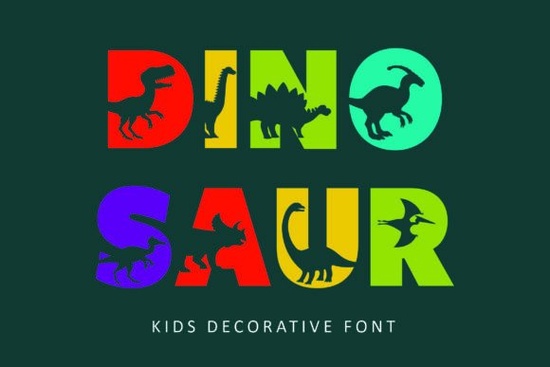
When it comes to creating engaging and fun designs for children, the Dinosaur Font is a fantastic choice. This playful typeface features adorable dinosaur silhouettes cleverly cut out from each capital letter, making it a hit for any project aimed at kids.
Why Choose Dinosaur Font for Your Creative Projects?
The Dinosaur Font is not just another decorative font; it's a creative tool that brings a unique and vibrant touch to your designs. Whether you're working on educational materials, nursery decor, or birthday invitations, this font adds a playful and engaging element that kids will love. The clear, bold, block style of the font ensures readability, while the decorative glyphs spark imagination and creativity.
Perfect for Educational Materials
One of the standout uses for the Dinosaur Font is in educational materials. Imagine creating worksheets, flashcards, or even a small book where each page features a different dinosaur. The font's playful design can make learning more enjoyable and memorable for young children. For example, you could use it to label different dinosaurs in an illustrated guide, making it both educational and visually appealing.
Ideal for Nursery Decor and Birthday Invitations
The Dinosaur Font is also perfect for nursery decor and birthday invitations. You can create custom wall art, name signs, or even a personalized banner for a dinosaur-themed birthday party. The font's vibrant and fun style will add a special touch to any room or event, making it feel more personalized and exciting for the little ones.
Enhancing Children’s Book Covers and Party Banners
For designers and authors, the Dinosaur Font is a great choice for children's book covers. The font's unique and engaging design can help capture the attention of young readers and parents alike. Similarly, if you're planning a party, using this font for banners and invitations can set the perfect prehistoric theme, making the event more immersive and fun.
Comparing with Other Decorative Fonts
While the Dinosaur Font stands out with its unique dinosaur silhouettes, it's worth comparing it with other decorative fonts to see which one best fits your project. For instance, the Cute Dog Font offers a different kind of playful charm, ideal for pet-themed projects. The Adaline Font provides a more elegant and whimsical feel, suitable for fairy tale or fantasy-themed designs. And the Beach Life Font is perfect for summer and beach-themed creations. Each font has its own unique style, so choose the one that best complements your creative vision.
How to Use Dinosaur Font in Your Designs
Incorporating the Dinosaur Font into your designs is straightforward. Here are some tips to get you started:
- Select the Right Project: Choose projects where the playful and vibrant nature of the font can shine, such as educational materials, nursery decor, or birthday invitations.
- Combine with Simple Graphics: Pair the font with simple, colorful graphics to enhance the overall design. For example, use it alongside illustrations of dinosaurs or other prehistoric elements.
- Use for Titles and Headings: The bold and clear style of the font makes it perfect for titles and headings. Use it to draw attention to important parts of your design.
- Test Readability: While the font is highly readable, it's always a good idea to test it with your target audience, especially if you're designing for very young children.
Where to Find Dinosaur Font
Tips for Maximizing the Impact of Dinosaur Font
To make the most of the Dinosaur Font in your projects, consider these practical tips:
- Keep It Consistent: Use the font consistently throughout your design to maintain a cohesive and professional look.
- Balance with Simplicity: Balance the playful nature of the font with simpler, more straightforward elements to avoid overwhelming the design.
- Get Feedback: Share your designs with others to get feedback and make any necessary adjustments to ensure the font is used effectively.
By following these tips and incorporating the Dinosaur Font into your creative projects, you can create engaging and memorable designs that stand out. Whether you're designing for a child's bedroom, a birthday party, or educational materials, this font is sure to add a unique and playful touch.